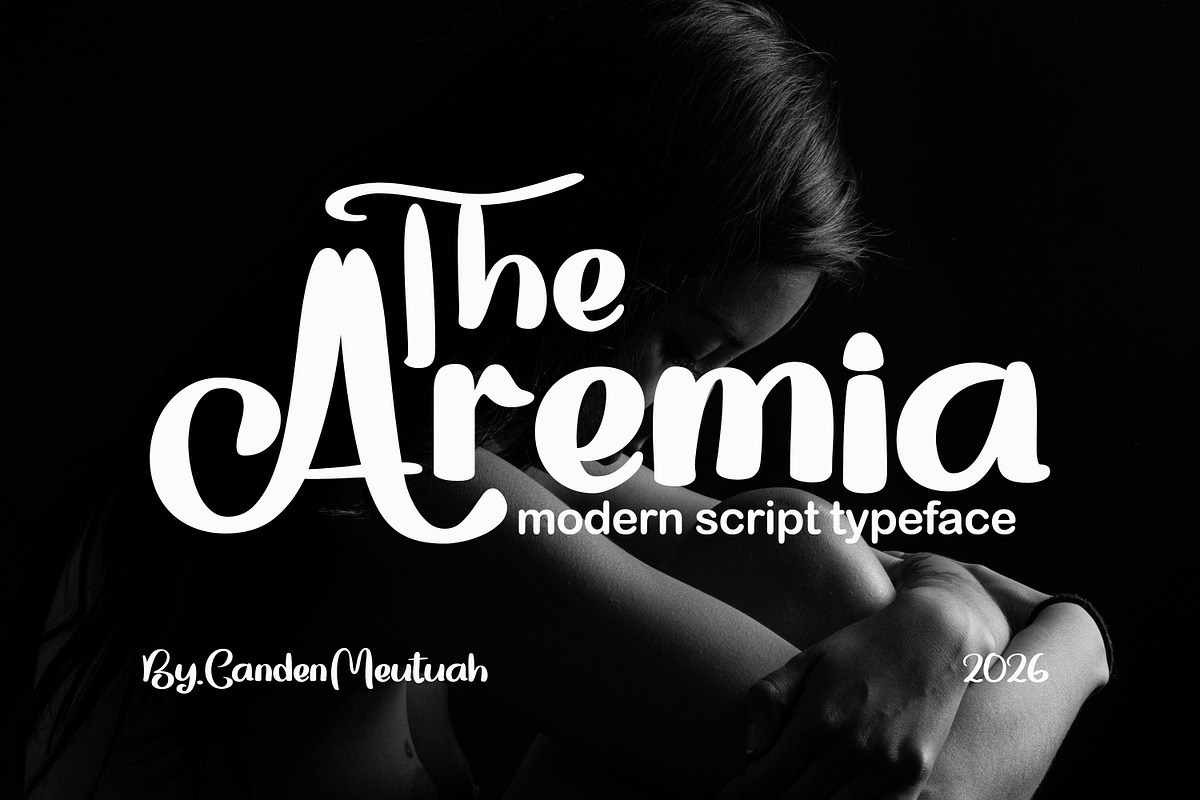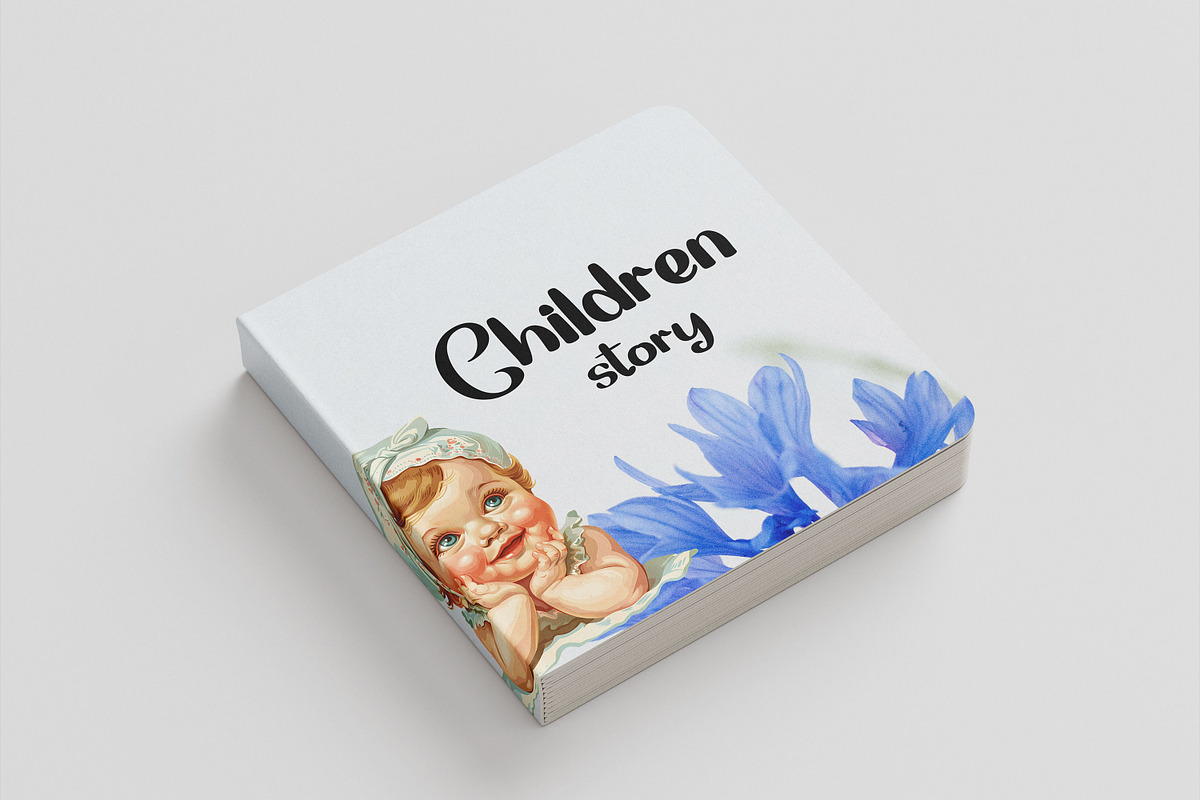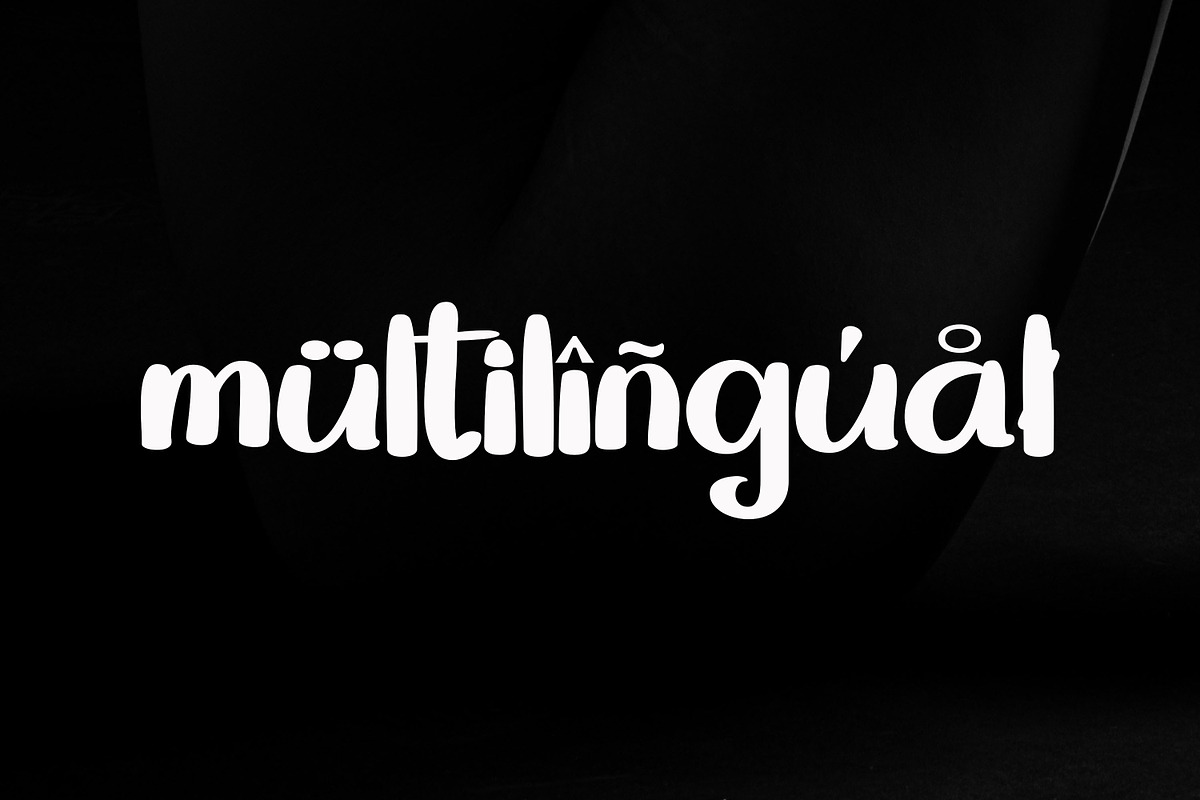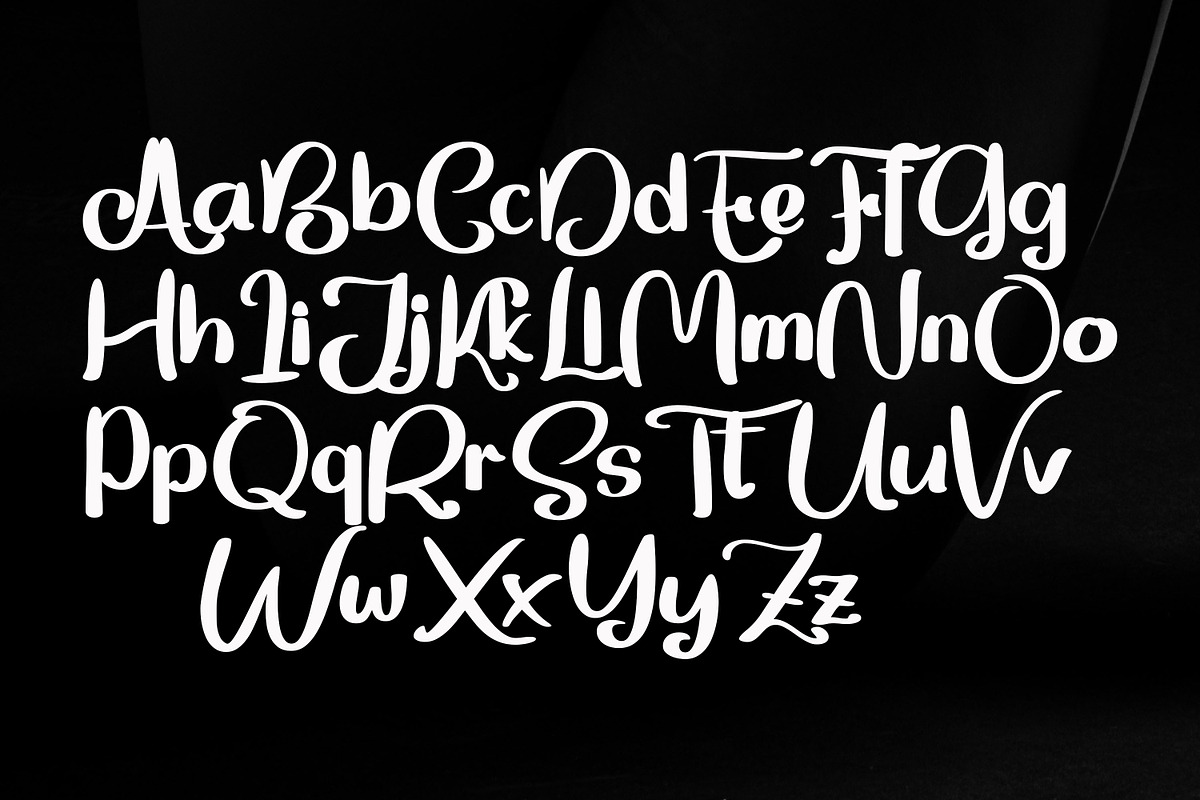
The Aremia
The Aremiais an elegant and refined handwritten typeface. It is perfect for your various design needs, such as logos and branding, social media posts, advertisements, business cards, wedding invitations, product designs, etc.
You will feel extraordinary beauty when combining this font with your work.
you will not be disappointed with the results.